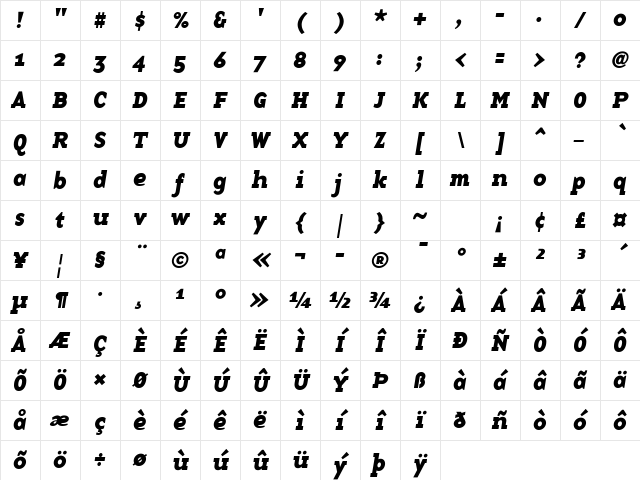
Complete BaseTwelveSerifBI Roman glyph index. Displaying only characters natively supported by BaseTwelveSerifBI Roman font.
BaseTwelveSerifBI carries the refined structure of traditional serif typography, with bracketed terminals and considered proportions that communicate credibility and craft.